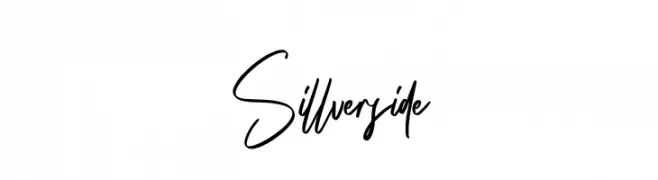
A cursive, calligraphic font with elegant, flowing characters.
A cursive, handwritten-style font with elegant, flowing characters.
A modern, handwritten font with a fluid and elegant style.
A modern, handwritten font with a casual and dynamic style.